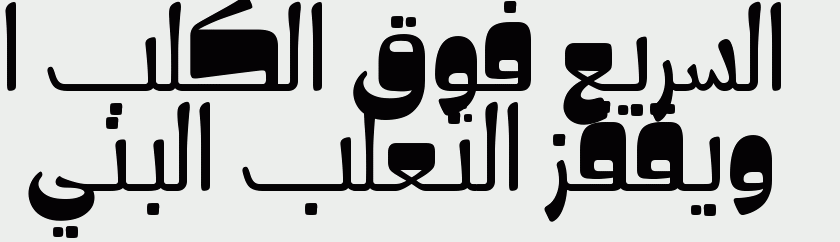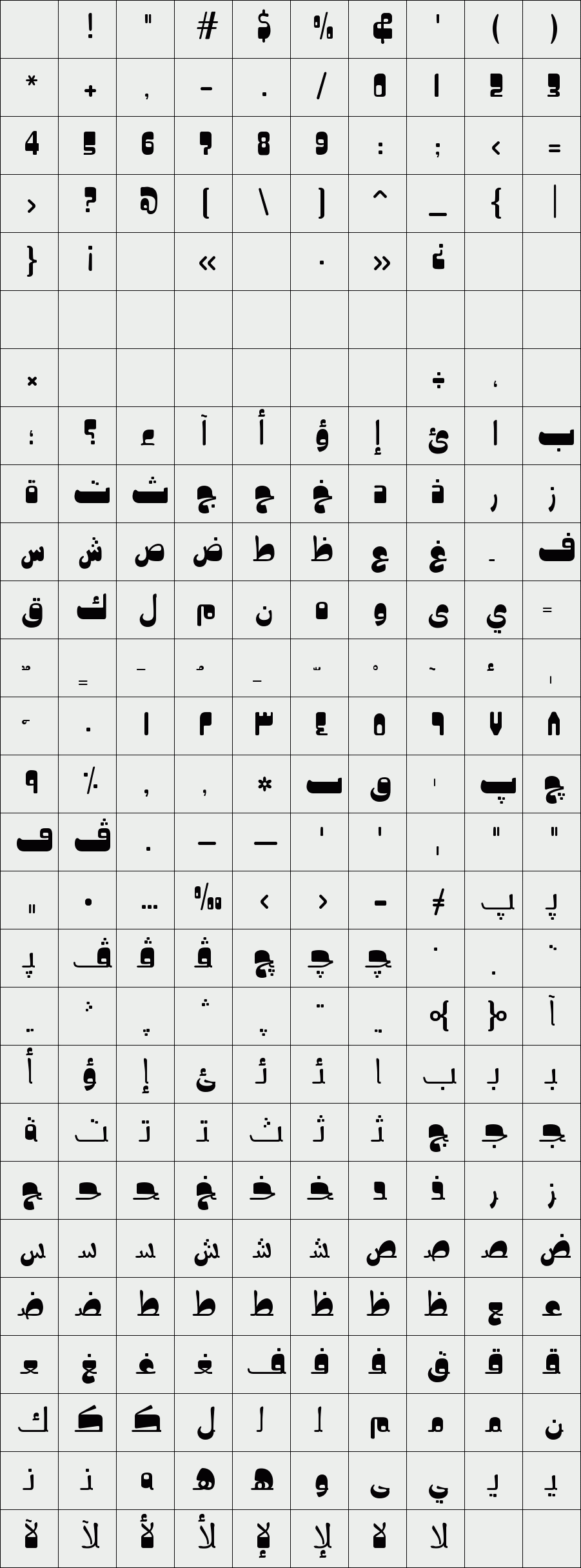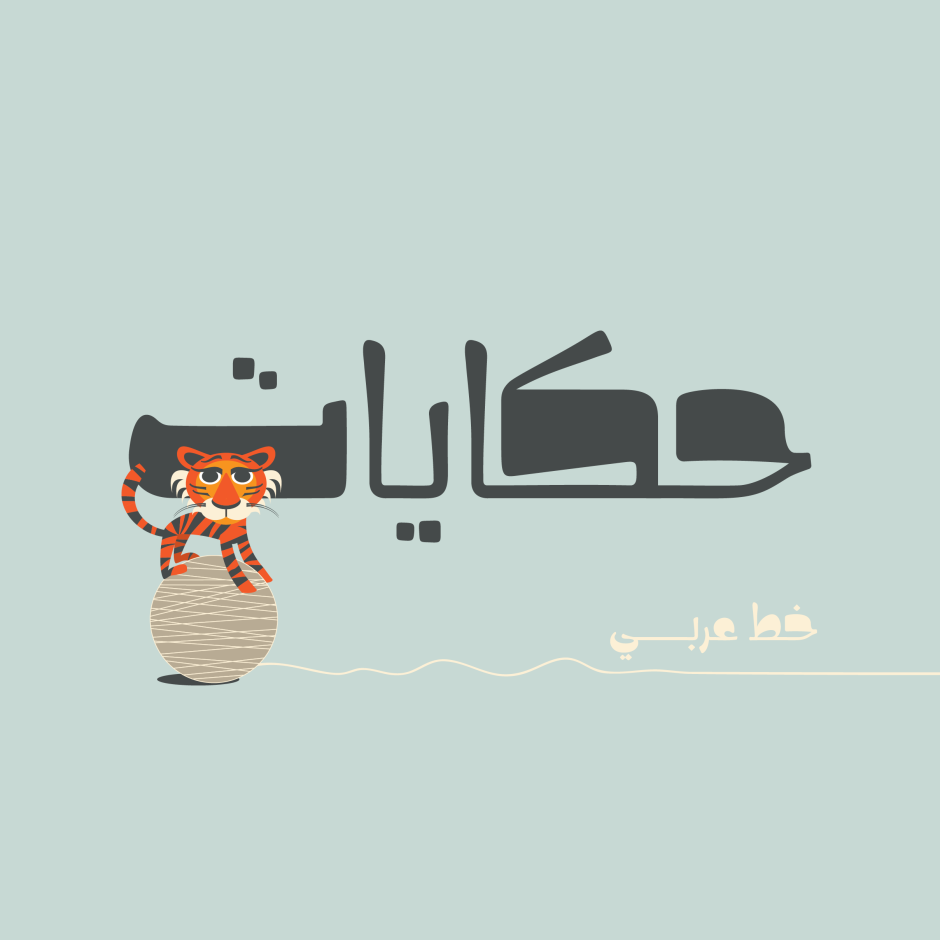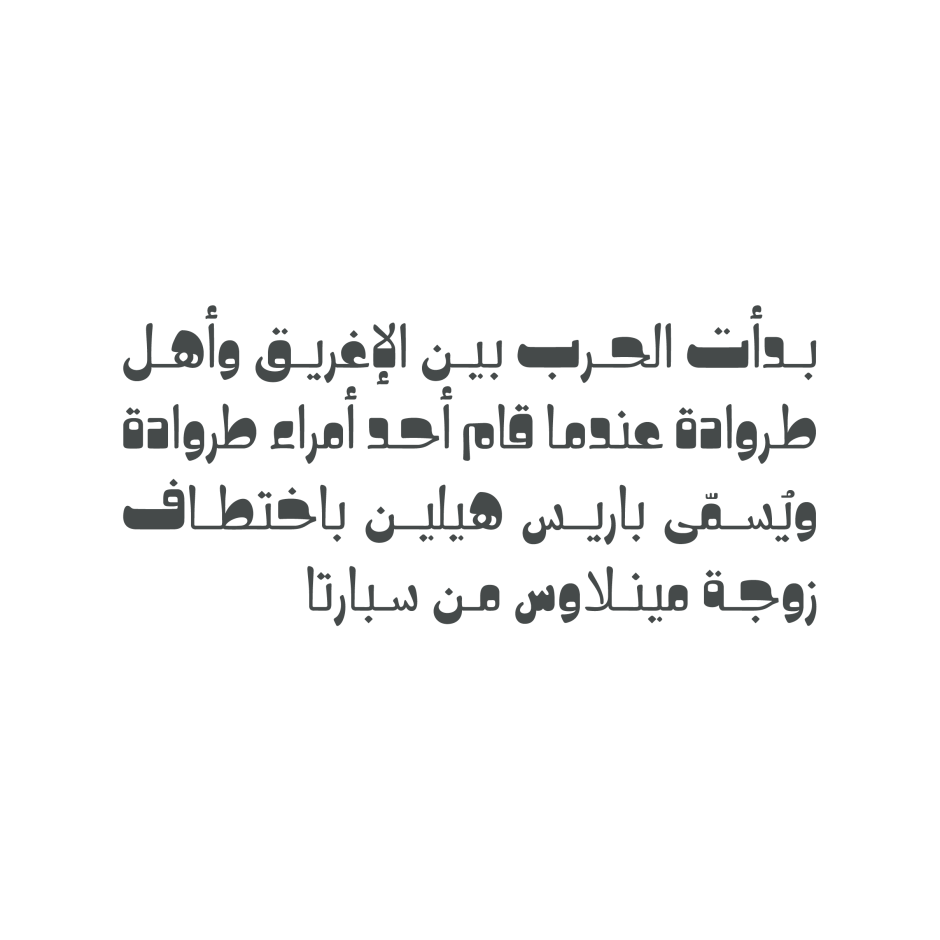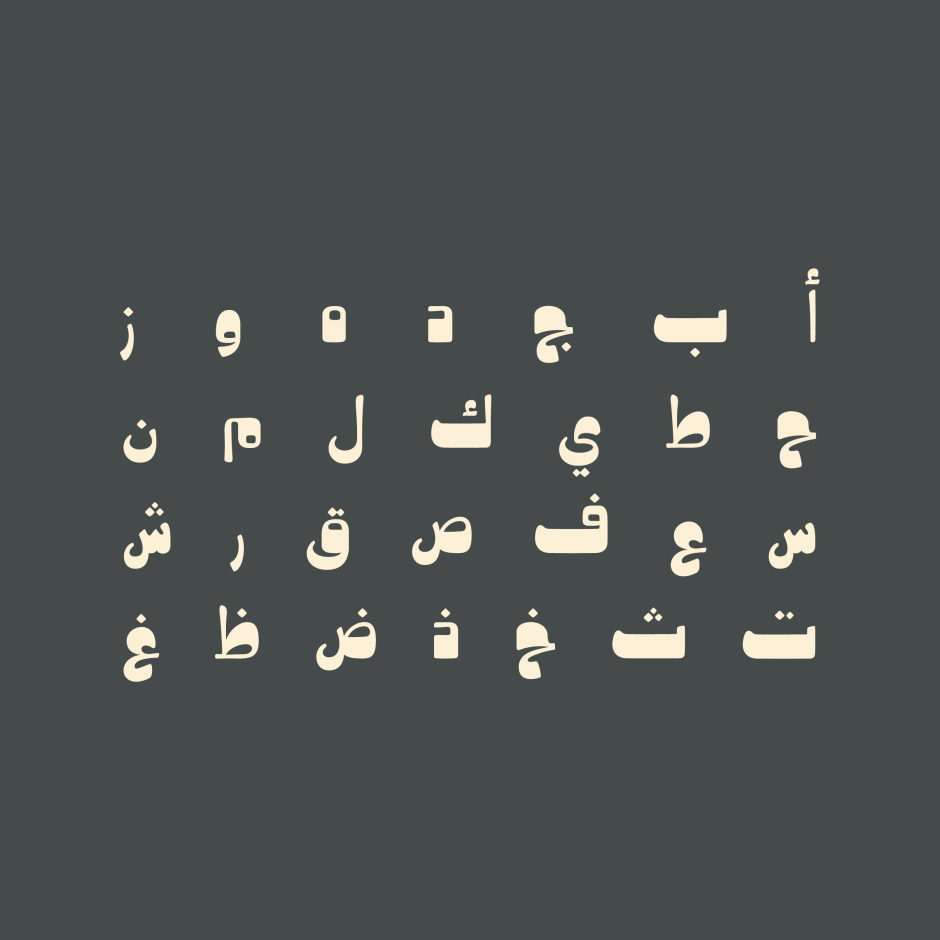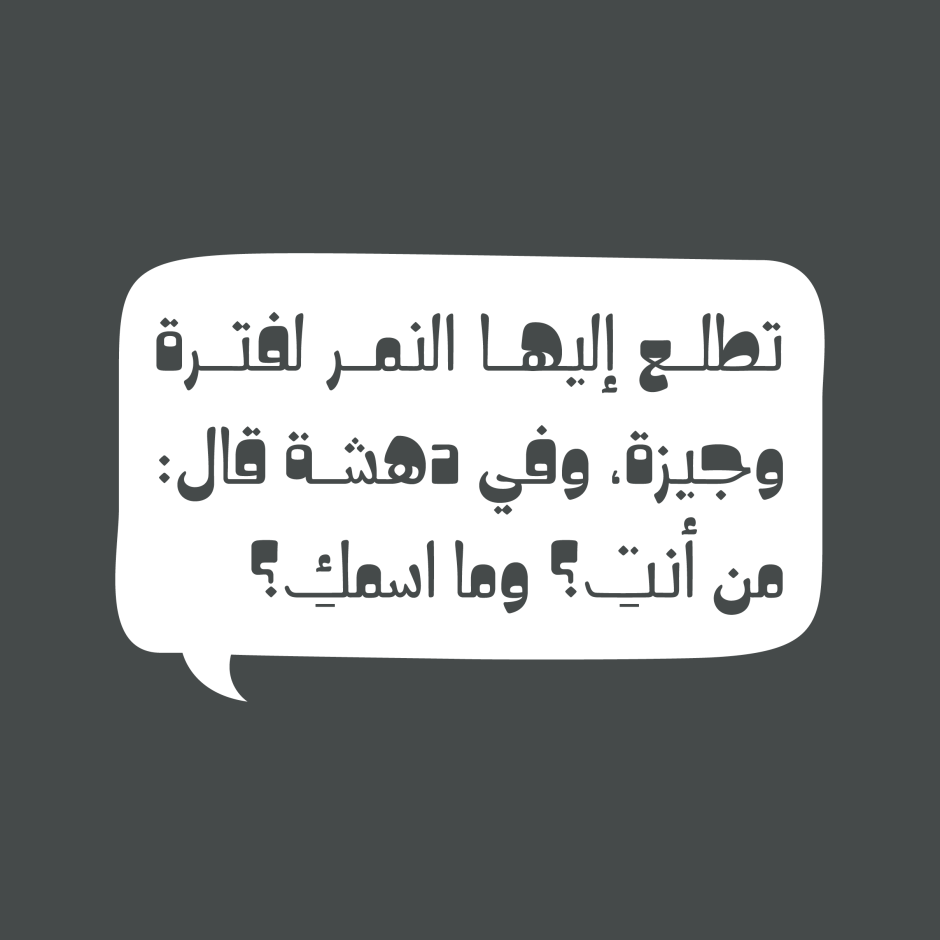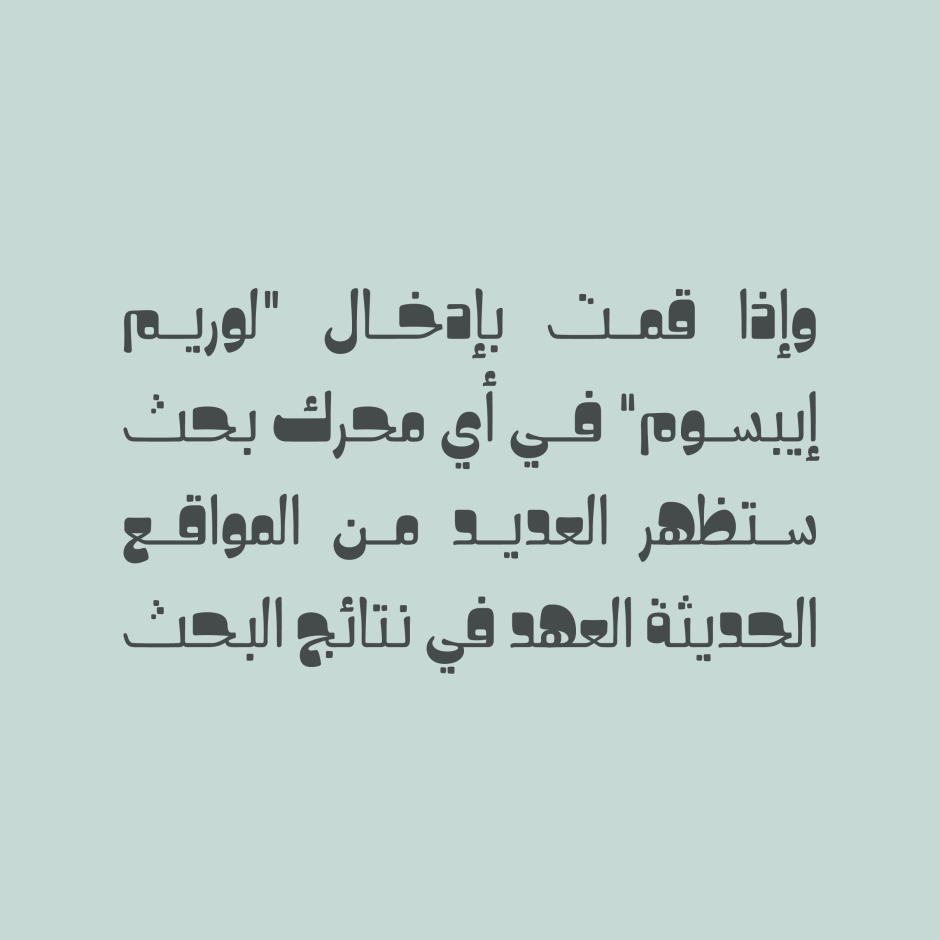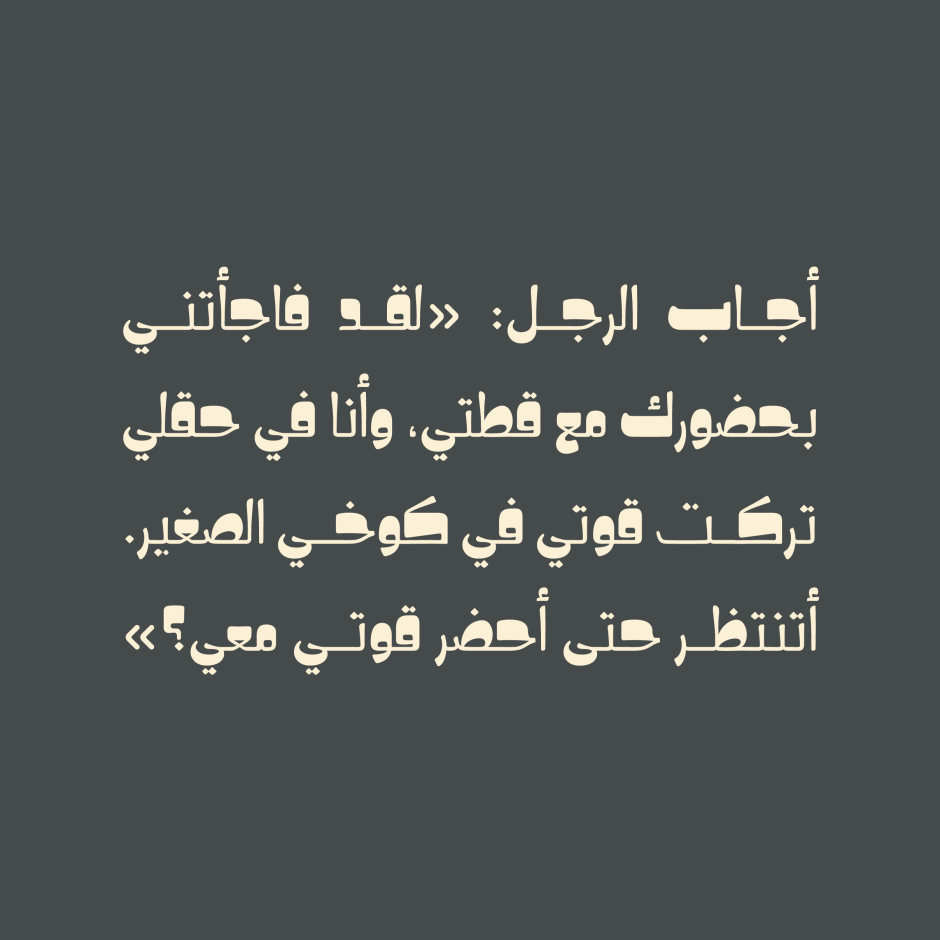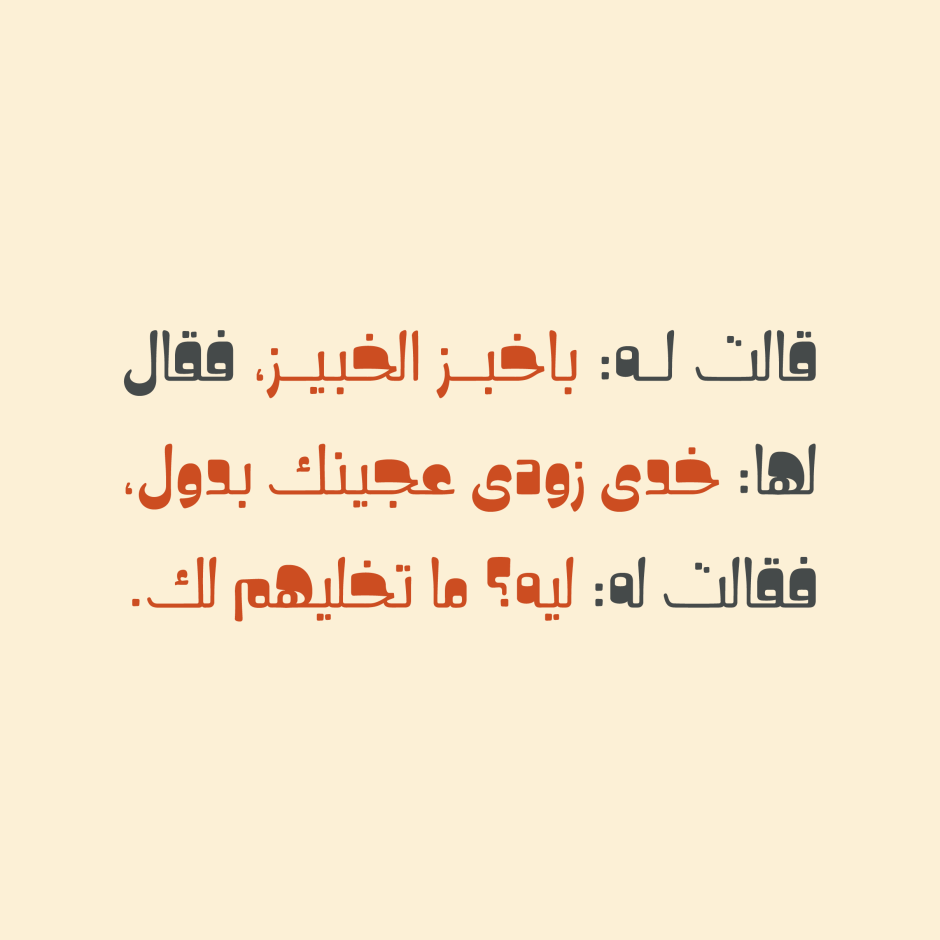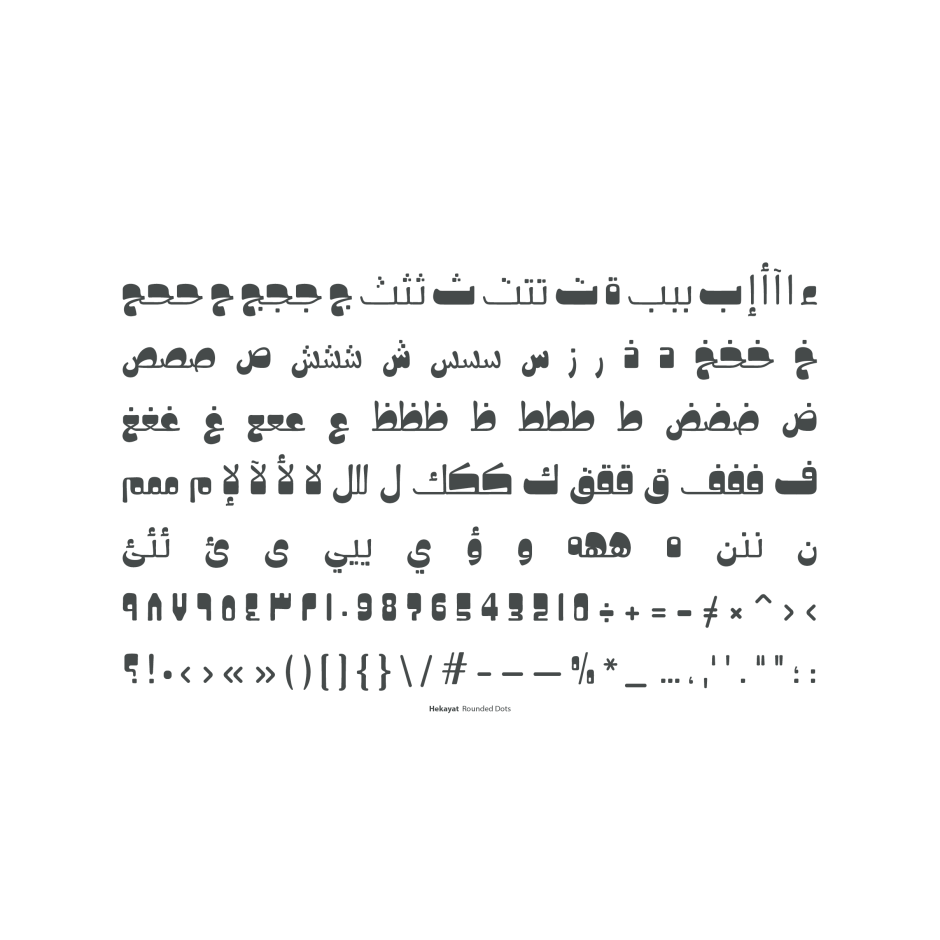
Hekayat
/ Rounded Dots
Hekayat is an Arabic display font that blends soft and smooth lines with heavy and thick terminals. The font suits publication design and comic books in addition to web and mobile applications. Hekayat features two styles with two different dot settings.